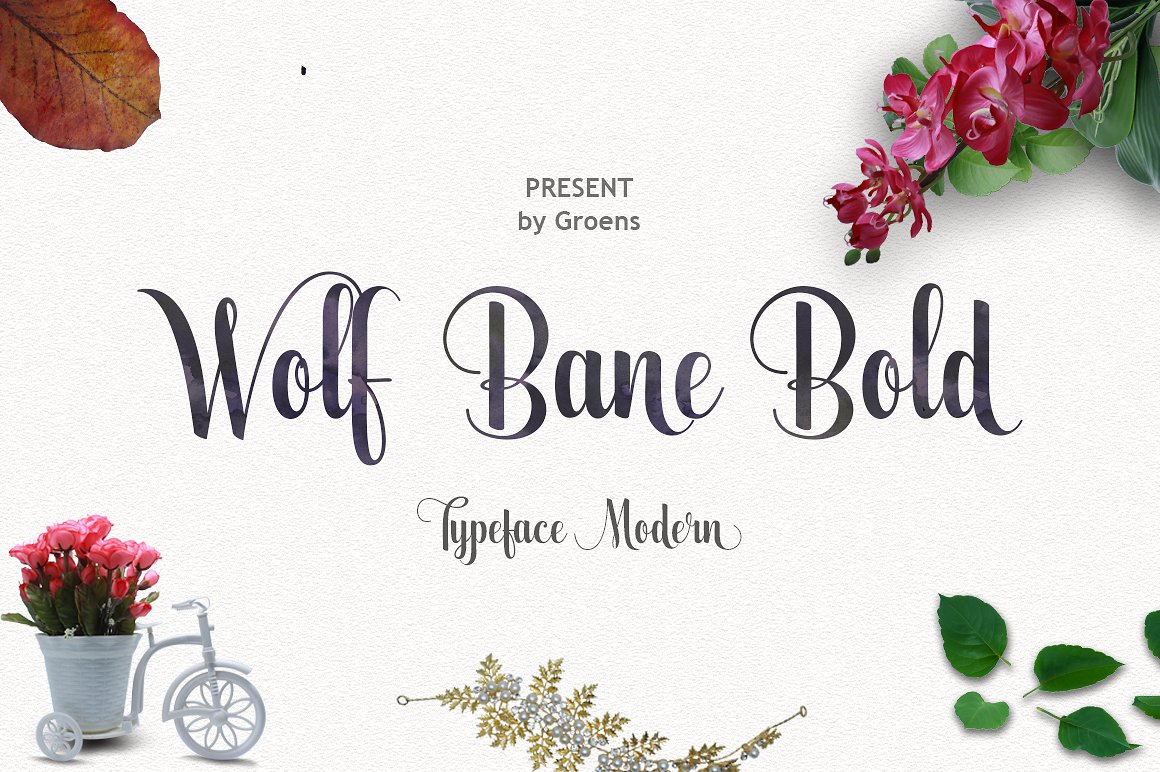
Wolf Bane Pro Script
Wolf Bane Pro Script Font
Wolfs Bane Bold is a brush script that is beautiful and unique, it is a model of modern calligraphy typefaces, in combination with a calligraphy writing style.